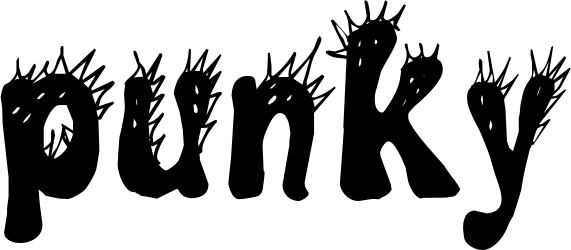
CF Punky Font
Do you want to get acquainted with a new font for your fun posters? Nice, you are at the right place. Today we present you with a special option to attract your target audience. Here is a CF Punky cactus font with a plump and a little bit of horror style that can be used for scary and fancy themes design. Use it now for logo design, cartoons, posters, print T-shirts, and enjoy.